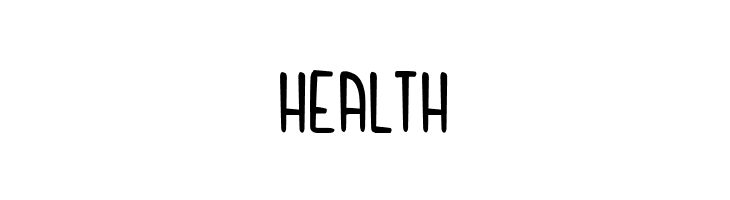
A bold, geometric font with modern and edgy characteristics.
A bold, artistic font with calligraphic influences and dynamic letterforms.
A playful, rounded font with consistent stroke width and modern appeal.
A modern, condensed font with geometric shapes and consistent stroke widths.
A bold, hand-drawn font with thick, uneven strokes and a playful yet assertive style.
A dynamic, expressive handwritten font with fluid, irregular strokes.
A playful and expressive handwritten font with dynamic strokes.
A handwritten font with elongated, flowing strokes and a casual elegance.
A playful, informal handwritten font with irregular strokes and a lively feel.